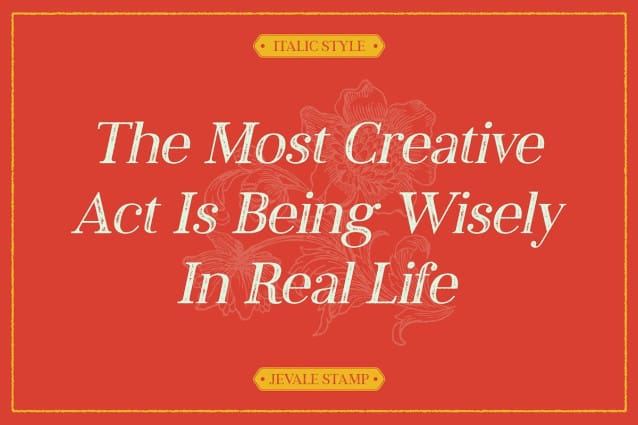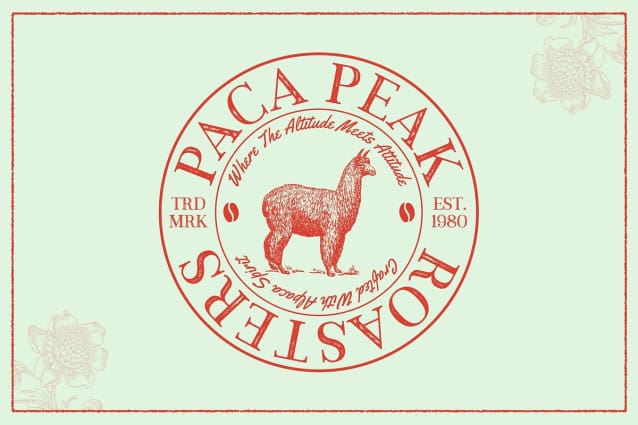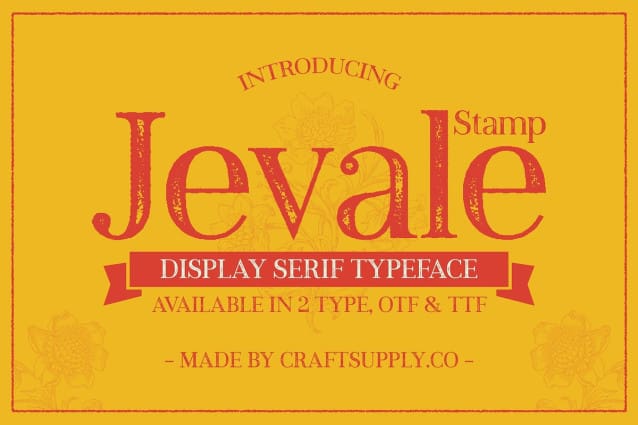
Jevale Stamp Font
Jevale Stamp Font is a classic serif font enhanced by an elegant stamp effect, showcasing timeless sophistication through letterforms inspired by typographic tradition. The design features subtle ornamental details that blend seamlessly with the textured stamp, adding a unique character that elevates any project.
Sophisticated Design for Formal Applications With its refined aesthetics, Jevale Stamp is ideal for formal invitations, luxury branding, and any design requiring a classy vintage vibe. The combination of classic appeal and modern stamp effect creates a strong visual allure, making it perfect for projects that demand elegance and style.
Versatile for Various Design Needs Jevale Stamp’s versatility allows it to shine across a range of applications, from upscale event stationery to high-end branding materials. Its elegant yet approachable character ensures it stands out while maintaining a professional feel, making it suitable for both print and digital designs.
Artistic Detail with Lasting Impact Embrace the artistic detail of Jevale Stamp, where traditional elegance meets contemporary design. This font captures attention and leaves a lasting impression, making it the perfect choice for creatives looking to infuse their work with sophistication and charm.